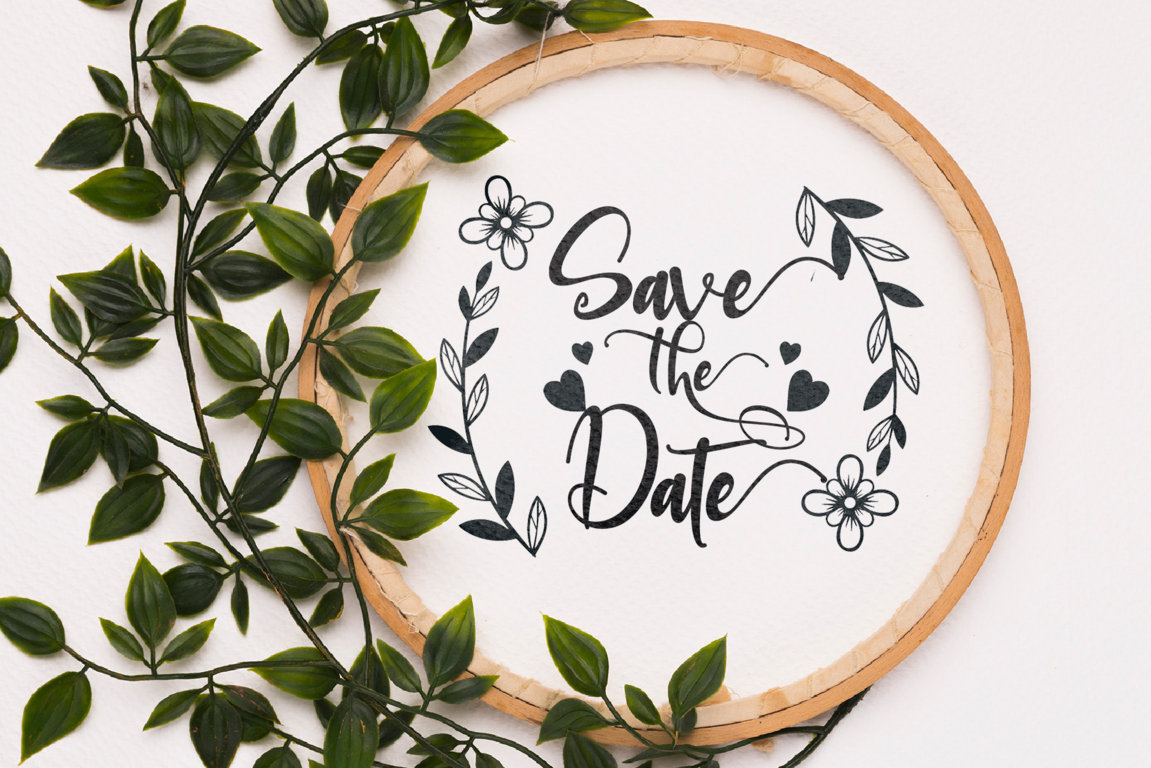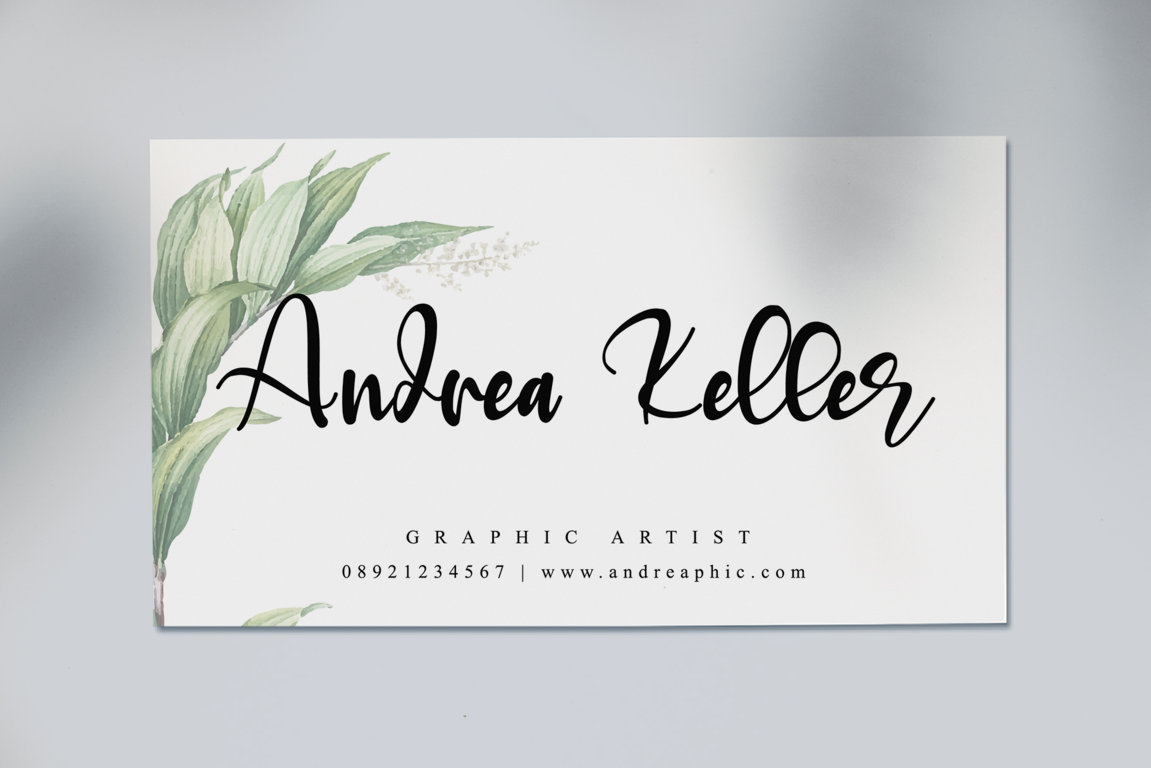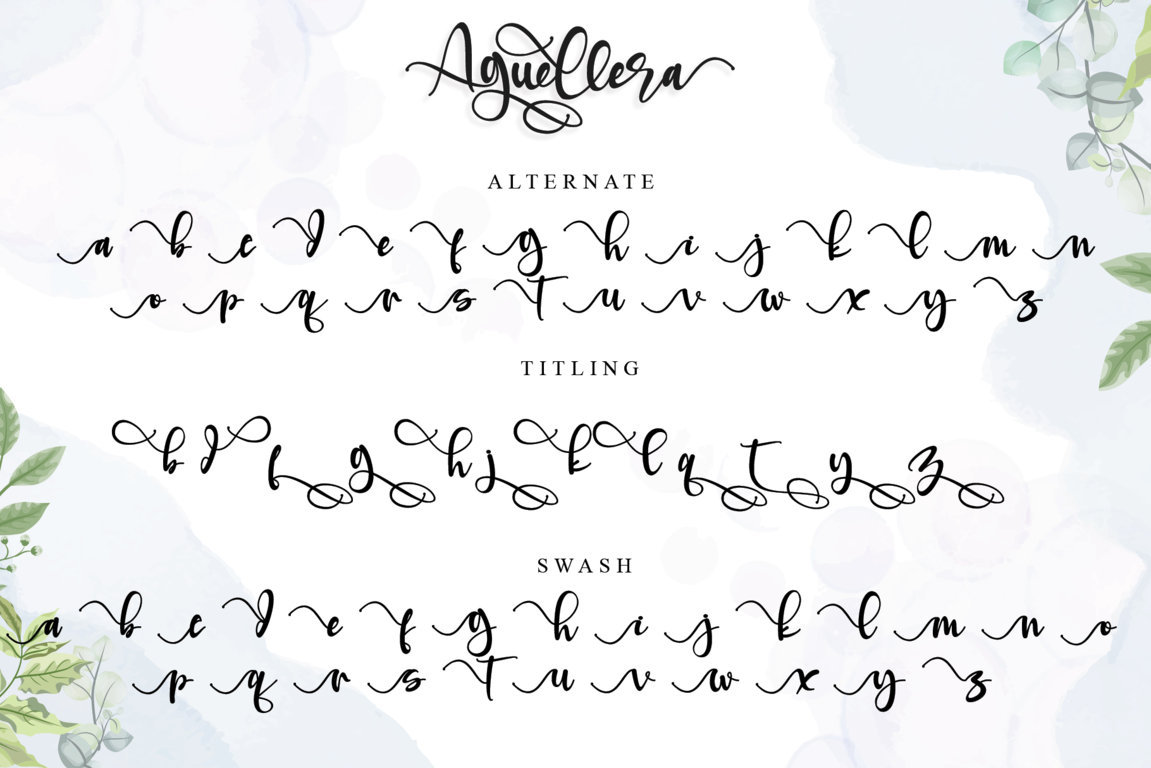
Aguellera is an elegant calligraphy script font that beautifully blends romantic charm with modern sophistication. Designed with smooth, flowing strokes and expressive letterforms, this font adds a graceful and artistic touch to any creative project. From logos and branding to packaging, quotes, invitations, and editorial layouts, Aguellera turns simple text into eye-catching typography with character and emotion.
Carefully crafted for versatility, Aguellera includes a rich selection of alternate glyphs, stylish swashes, and seamless ligatures—allowing you to create unique, custom lettering with ease. Fully PUA encoded, all decorative characters and special glyphs are instantly accessible, making your workflow smooth and efficient. Whether you’re aiming for a romantic, classy, or contemporary look, Aguellera delivers timeless beauty with a modern edge.
• Elegant calligraphy script style
• Uppercase & lowercase letters
• Smooth ligatures and stylish alternates
• Decorative swashes & titling characters
• Numerals & punctuation
• Multilingual support: ä ö ü Ä Ö Ü ß ¿ ¡
• Fully PUA encoded